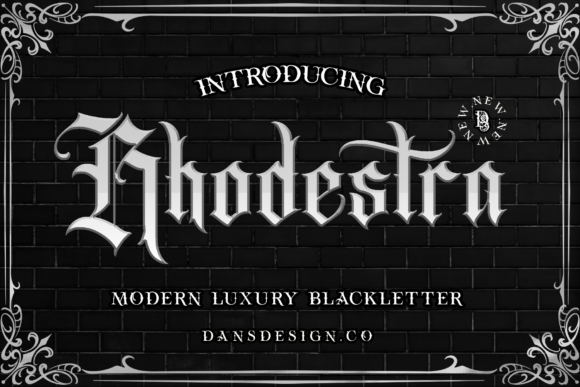
Prepare yourself to be captivated by the enchanting world of Rhodestra, a blackletter font crafted with meticulous detail and elegance. Each character exudes an air of sophistication and intrigue, inviting you to unleash your creativity.
Immerse yourself in a symphony of artistic expression as Rhodestra's distinctive letterforms dance across your screen. Its imposing presence commands attention, while its uniquely shaped letters ignite a spark of inspiration. Whether you're composing lyrics for a captivating music video or seeking to add a touch of grandeur to your designs, Rhodestra stands ready to elevate your creations.
With Rhodestra, the possibilities are as limitless as your imagination. Its versatility seamlessly complements a myriad of projects, from mesmerizing logos to captivating posters. Each design infused with Rhodestra's essence will captivate audiences and leave an unforgettable impression.